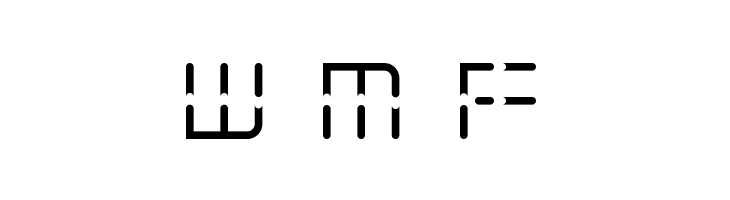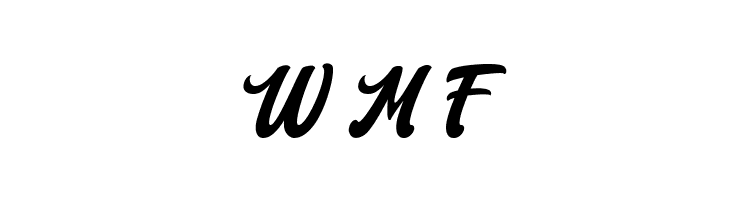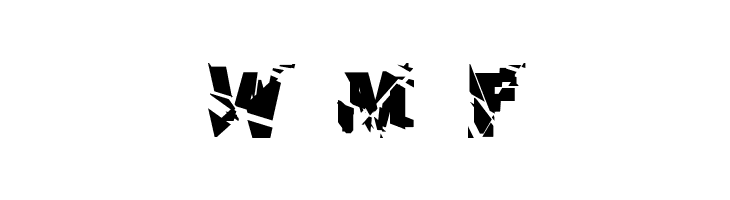
An elegant script font with flowing, interconnected letters and ornate uppercase characters.
A bold, geometric font with a futuristic and technical design.
A fragmented, distressed font with a bold and chaotic design.
A bold, fragmented font with a chaotic and edgy style.
A bold, expressive script font with flowing, cursive letterforms.
A bold, elegant script font with interconnected characters and ornate flourishes.